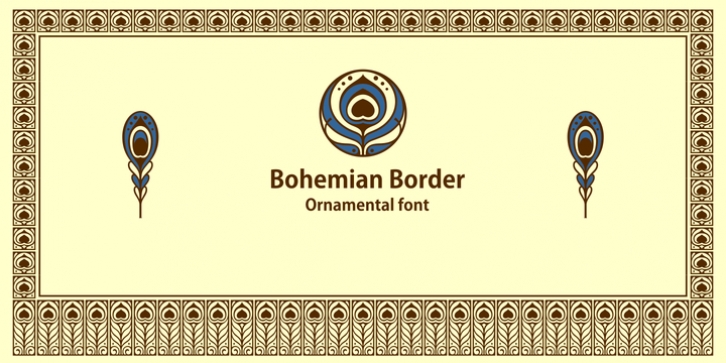
Bohemian Border downloadDesigner: Lukyan Turetskyy
Ornamental font based on examples from the book Miller & Richard “Specimens of Printing type”. Collected ornaments belong to the Art Nouveau style.